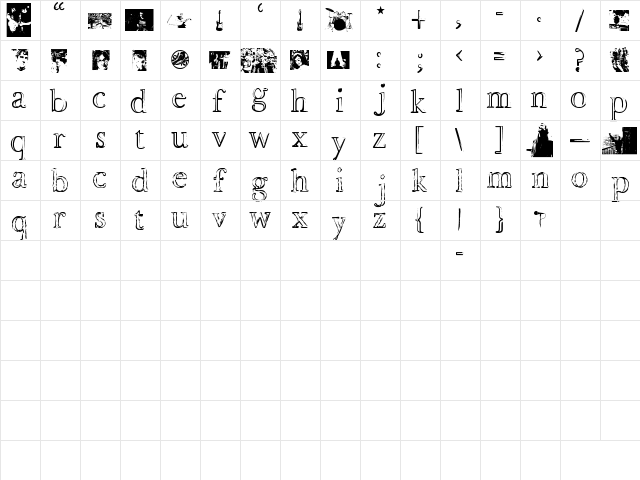
Montauk Regular
Design Context for Montauk Typeface
Montauk is a composed and adaptable typeface that performs quietly and consistently across a wide range of design contexts.
Pro Tip: Use Montauk in both headline and body roles to test its range before committing to a single application.